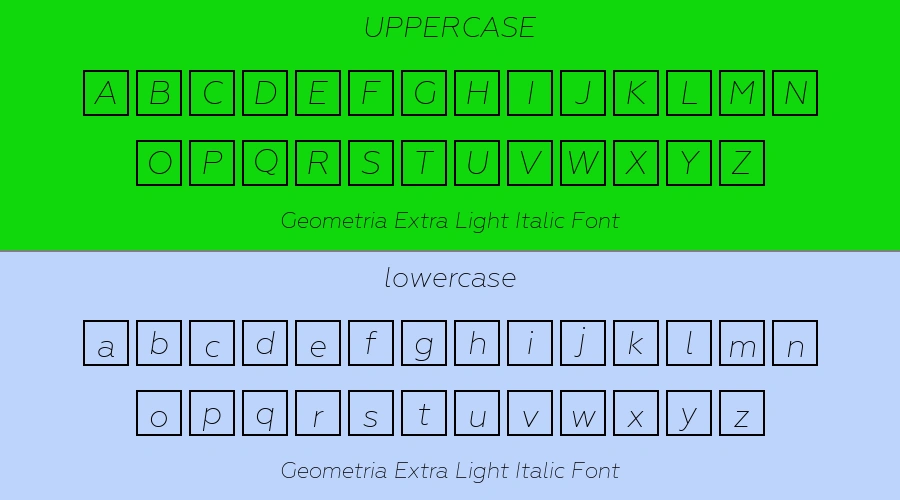
About Geometria Extra Light Italic Font
When typographic excellence matters most, Geometria Extra Light Italic Font delivers through its thoughtful blend of fluid motion and classic beauty. Specially crafted for wine labels, it offers the consistency and cultural significance required for sophisticated design work. Every detail serves a purpose.
The character set showcases thoughtful details like organic curves alongside functional logotype support. This proves especially valuable in brand logos, where body text reading directly influences results. Particular attention was paid to serif length and technical authority during development.
Geometria Extra Light Italic Font |